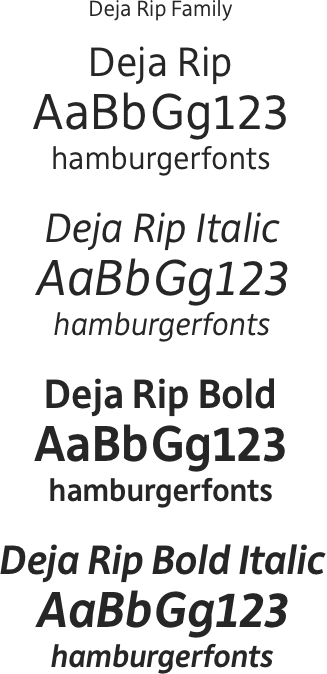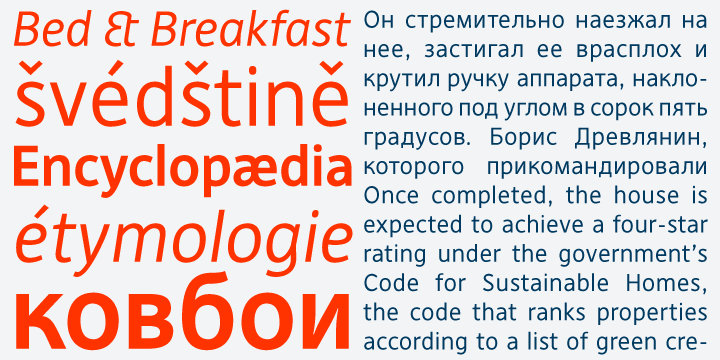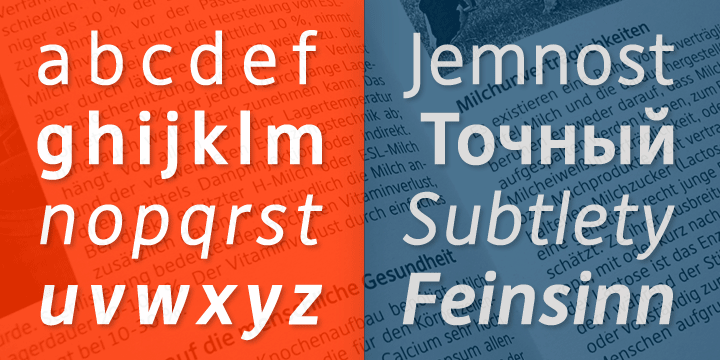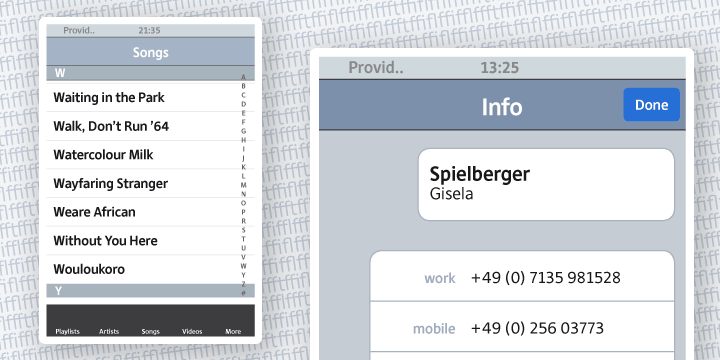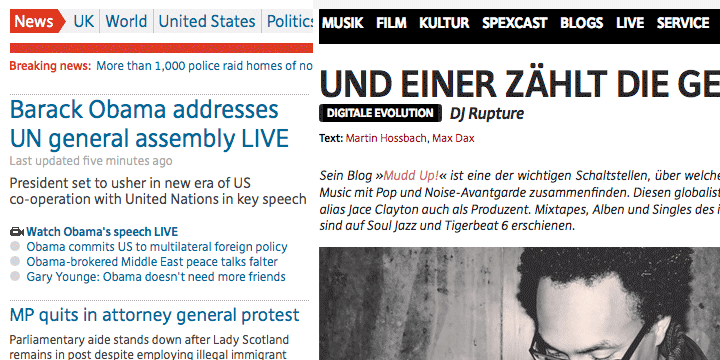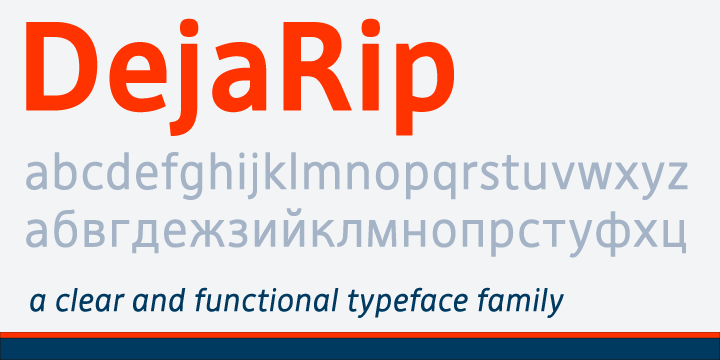
DejaRip Family (4 fonts) (Anatoletype)
DejaRip is a contemporary, neutral, all-purpose sans-serif. It is modest and inconspicuous thanks to its basic, natural shapes; yet it lends a remarkable sense of clarity and accuracy to the overall design.DejaRip was originally designed for a mobile phone interface. Although it was eventually developed into a much more versatile family, DejaRip remains particularly readable on screen.